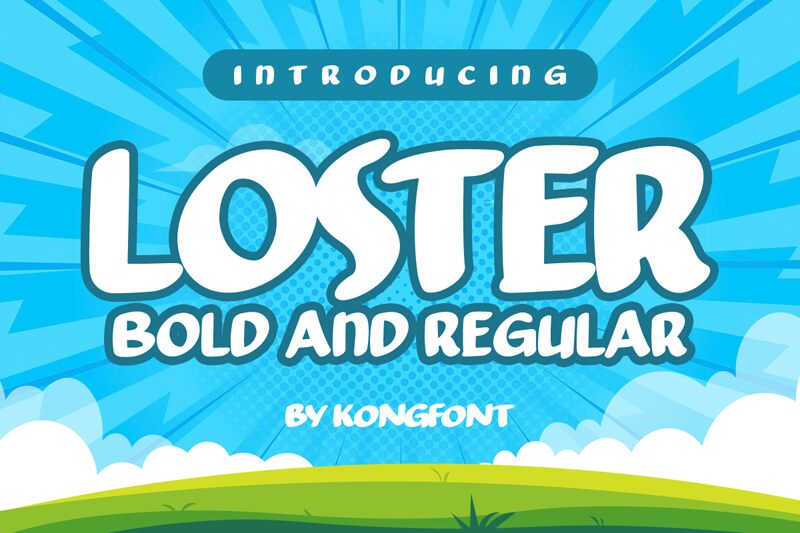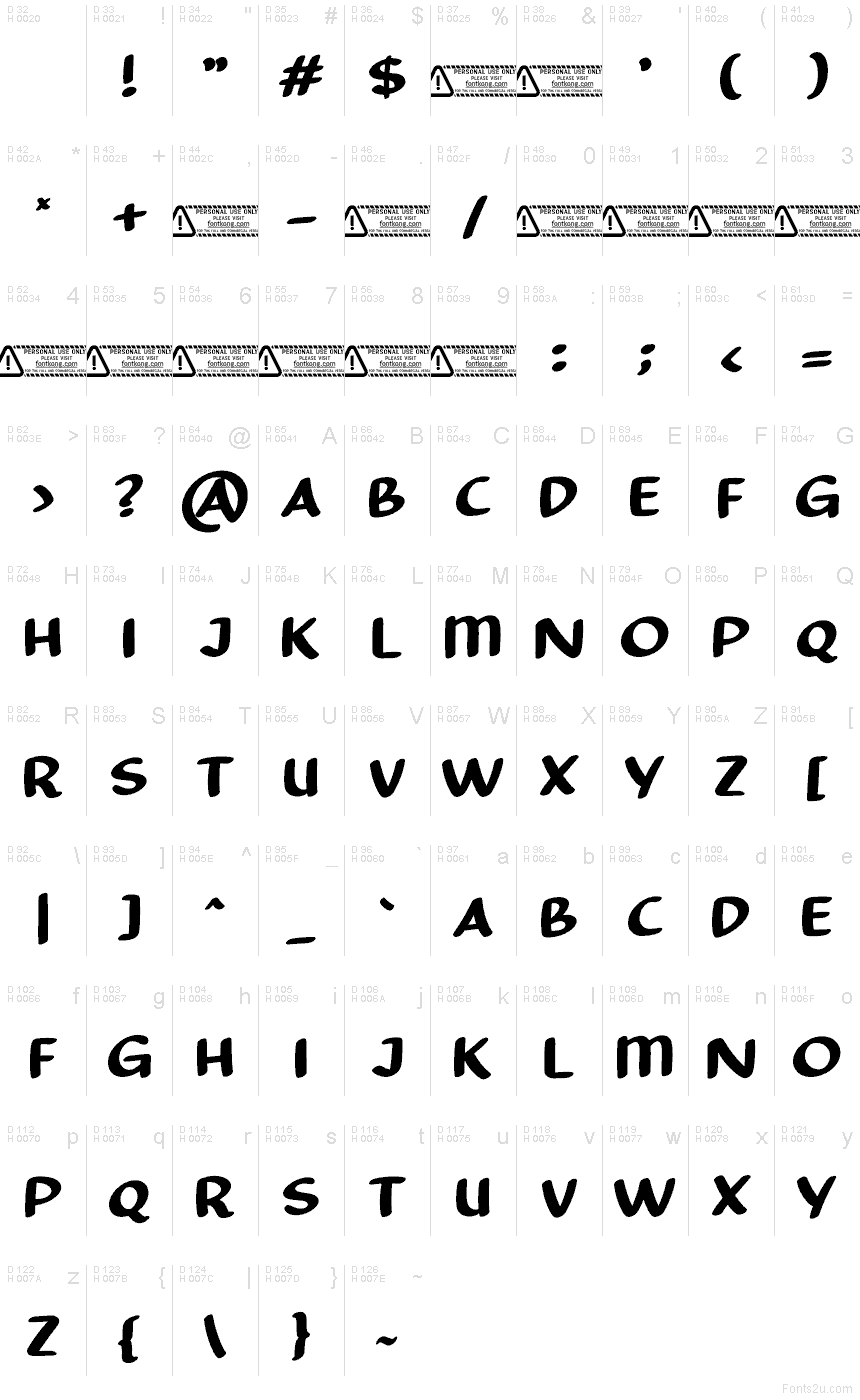
Loster font by Kong Font is a free cartoon display typeface with big, inky letterforms that feel hand-painted and wonderfully bouncy. Each character has a slightly uneven silhouette and rounded, blobby curves, giving headlines that loose, animated energy you’d see on a Saturday-morning show. The bold weight and tight rhythm pull the eye instantly, even on busy backgrounds or colorful layouts.
Using Loster, this free font shines on kids’ book covers, game titles, snack packaging, YouTube thumbnails, birthday invitations, and playful poster designs. Its chunky shapes hold up at large sizes, where the wobble and personality really come through. Pair Loster with a clean, simple sans serif for body text to keep your layouts readable while its cartoony voice does the attention-grabbing work.